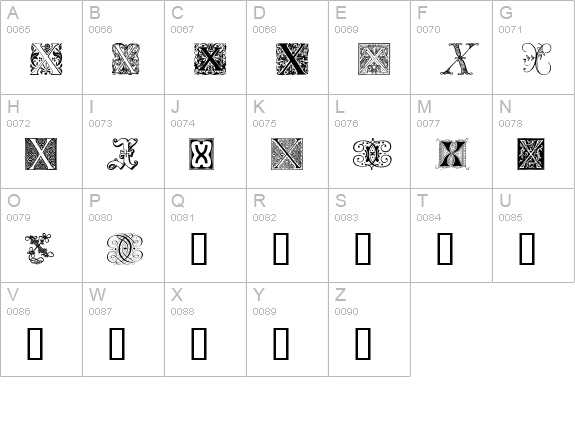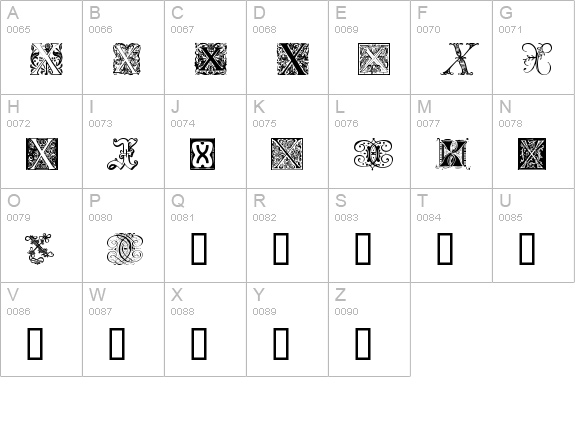
Ornamental Initials X Font Details
The Ornamental Initials X font is a stunning display typeface that exudes elegance and sophistication. Featuring intricate and ornate initials, this font is perfect for adding a touch of luxury to your designs. Each letter is beautifully crafted with delicate details and flourishes, making it a standout choice for titles, invitations, and other special projects. What sets Ornamental Initials X font apart is its exquisite design and timeless appeal. The ornamental elements add a touch of old-world charm, while the stylish letterforms bring a modern twist to the overall look. This font is versatile and can be used for a wide range of creative projects, from wedding invitations to branding materials. Best of all, Ornamental Initials X font is available for free download at FontsMarket.com. Whether you're a designer looking to add a touch of sophistication to your work or an enthusiast in search of a unique font for personal projects, this font is a must-have in your collection. Download Ornamental Initials X font today and elevate your designs with its timeless beauty and elegance.